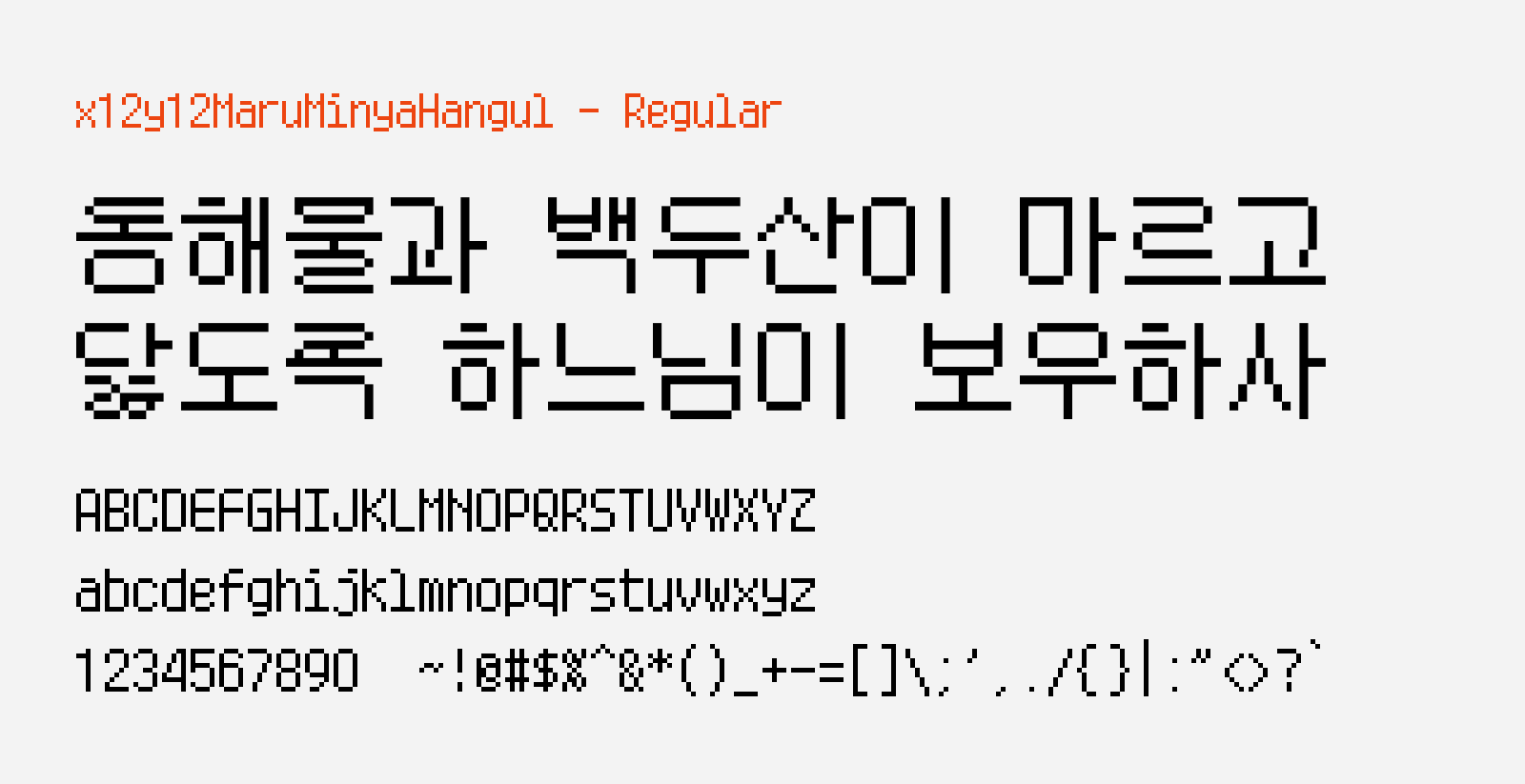
MaruMinya Hangul
MaruMinya Hangul (마루미냐 한글) is a squarish pixel free font that supports Korean and Japanese characters. It was created based on the original free Japanese pixel font MaruMinya (マルミーニャ), by adding the complete Hangul character set on top of the available characters from the original font. Similar to MaruMinya, the Korean characters are also constructed with the 12px base square size where the x-axis and y-axis is the same 12px, resulting in a rather natural strokes that has a rounded look, and are not overly straight and blocky which enhances the readability.
MaruMinya Hangul works great for bitmap or pixel graphic designs and interfaces especially for games and artwork with gaming themes, to bring out that retro, nerdy look. Besides aforementioned Korean and Japanese characters (with kanji support up to JIS Level 2), MaruMinya Hangul also supports Latin and Cyrillic scripts. This font is released under the SIL Open Font License, therefore you can download it for free and be used on personal and commercial projects without much restriction.